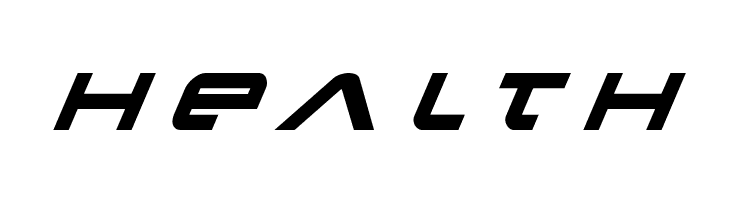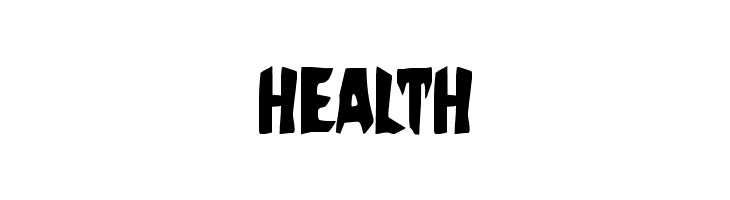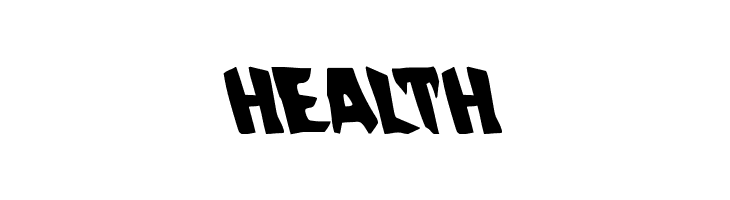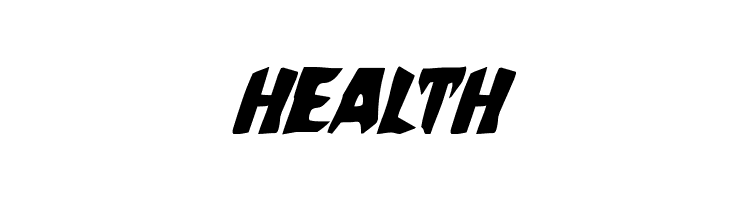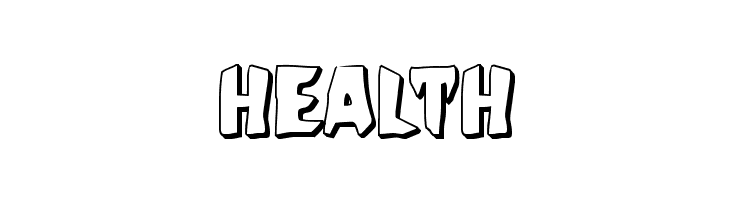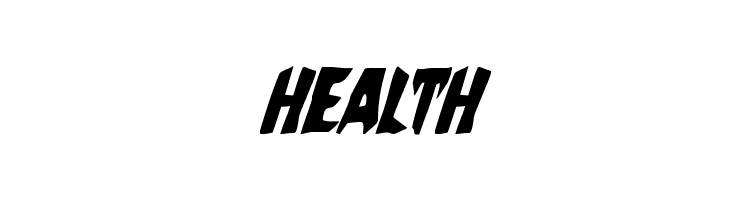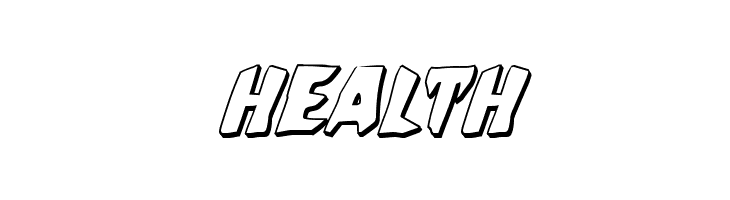
A futuristic, geometric font with bold, angular letterforms.
A bold, italic, futuristic font with angular, geometric characters.
A bold, 3D italic font with a playful and dynamic style.
A bold, 3D cartoonish font with a playful and dynamic style.
A bold, condensed font with jagged, dynamic characters.
A bold, condensed, and italicized font with sharp, angular characters.
A bold, jagged font with a hand-carved, edgy appearance.
A bold, expanded, and italic font with a dynamic and decorative style.
A bold, italicized font with sharp, angular edges and dynamic styling.
A bold, slanted font with a rugged, dynamic style.